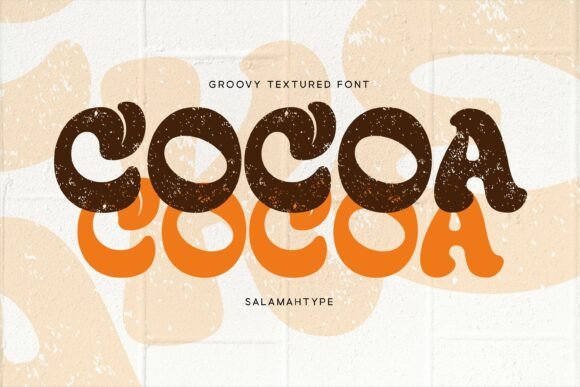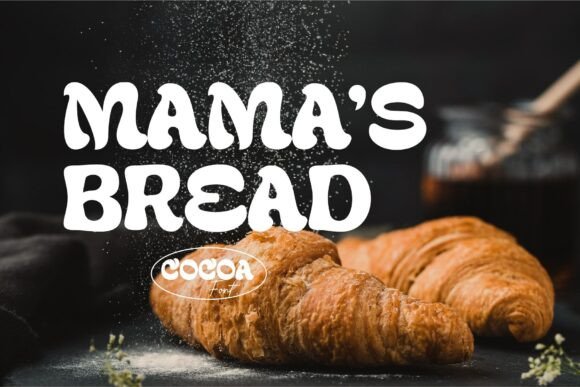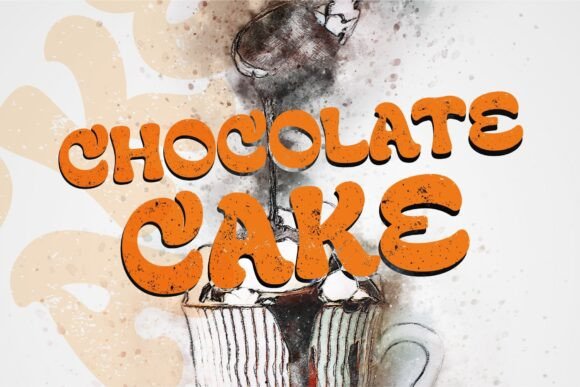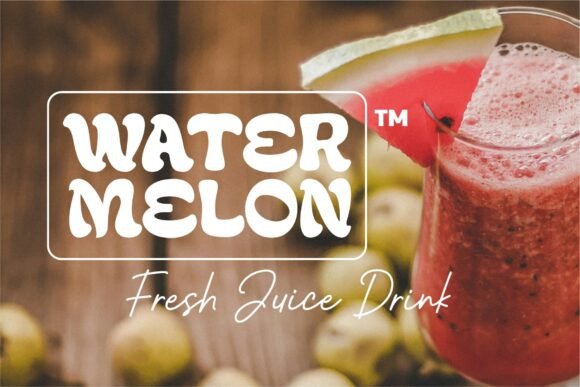
Cocoa Font: Funky Retro Display Font for Branding & Packaging
About the Cocoa Font
From logos to headlines, the Cocoa Font is the perfect choice for making a lasting impression. Introducing Cocoa, a fun and groovy font with cute shapes, perfect for branding food, drinks, and restaurants. Cocoa features multilingual support and cool alternates, adding a fresh, playful vibe to your designs. Ideal for creating vibrant logos, menus, packaging, and more, with endless creative possibilities.
Cocoa’s playful character makes it a strong choice for projects needing a fun, approachable feel. It excels in headlines, short text blocks on packaging, and branding for businesses targeting a younger demographic, such as cafes, ice cream parlors, or children’s products. However, its informal style is less suitable for body text or UI elements where readability is paramount.
Pairing Cocoa effectively requires considering its rounded, friendly forms. A clean sans-serif like Montserrat or Lato would provide a solid, modern contrast, balancing its playful energy. For a more sophisticated look, a classic serif like Garamond or a slightly more playful serif such as Playfair Display could add a touch of elegance without overpowering Cocoa’s charm.
Avoid using Cocoa for lengthy text or situations demanding a serious or formal tone. Its strength lies in its ability to inject a dose of fun and vibrancy into branding and short-form design elements.